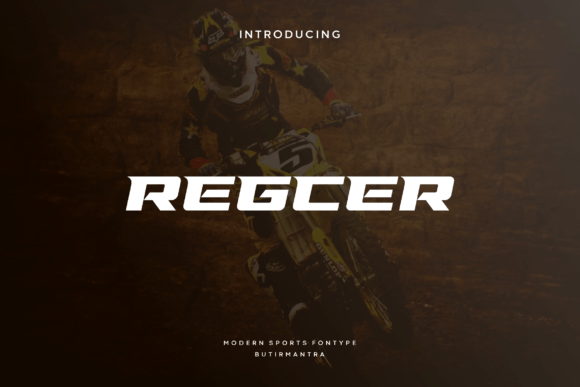
Unleash the Thrill of Velocity with Regcer Font: Where Power Meets Agility in Typography
In the realm of typography, where words dance across the canvas of design, Regcer Font emerges as a champion of dynamism and visual impact. Its wide italics, modern cutouts, and dynamic slant create an exhilarating sense of motion, capturing the essence of speed and energy.
Imagine your designs radiating with the sleek curves and sharp angles of Regcer, a sans serif font that epitomizes the spirit of sports and adventure. Picture your brand's message slicing through the digital noise, leaving an indelible mark on the minds of your audience.
With Regcer, you have the power to transform ordinary text into adrenaline-fueled statements. Its bold strokes and confident lines evoke a sense of urgency, propelling your designs to the forefront of attention. Whether it's a high-octane racing logo, a heart-pounding sports poster, or an exhilarating cycling jersey, Regcer Font is your ultimate co-pilot, pushing the boundaries of creativity and engagement.
But Regcer's versatility extends far beyond the realm of sports and adrenaline. Its sleek and contemporary design lends itself effortlessly to a wide spectrum of projects, from modern branding and sleek website headers to captivating social media graphics and eye-catching product packaging. Regcer Font is the ultimate chameleon, adapting seamlessly to your creative vision, adding a touch of dynamism and sophistication wherever it goes.
So, if you seek a font that embodies the essence of speed, energy, and boundless creativity, look no further than Regcer. Let its bold strokes and dynamic slant ignite your designs, propelling your brand to new heights of success and leaving a lasting impression on your audience.